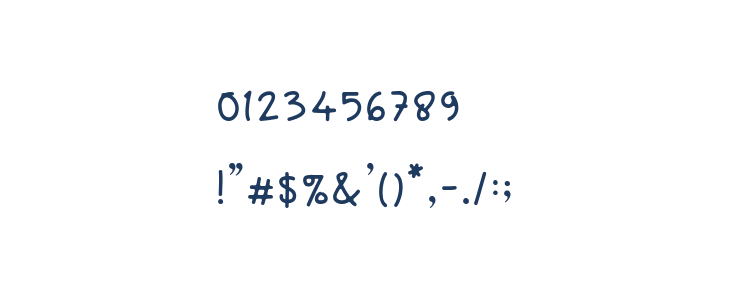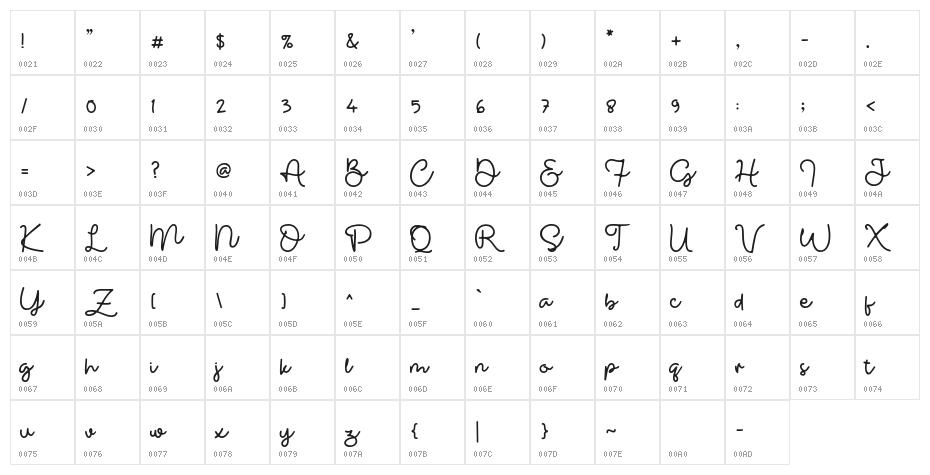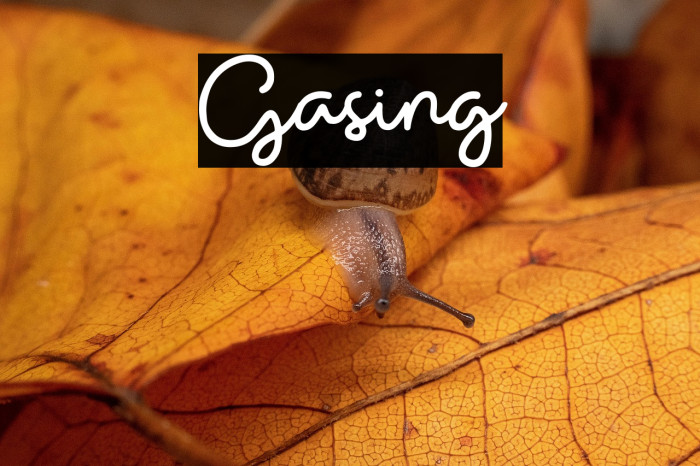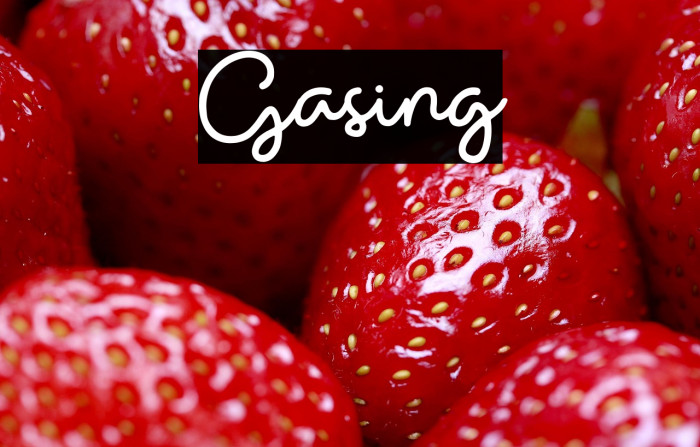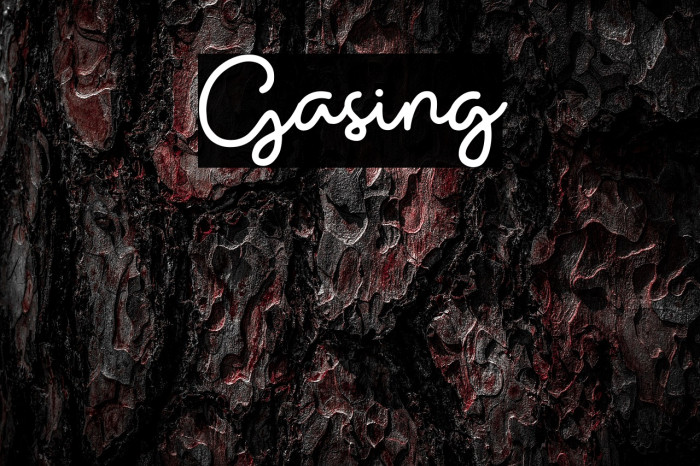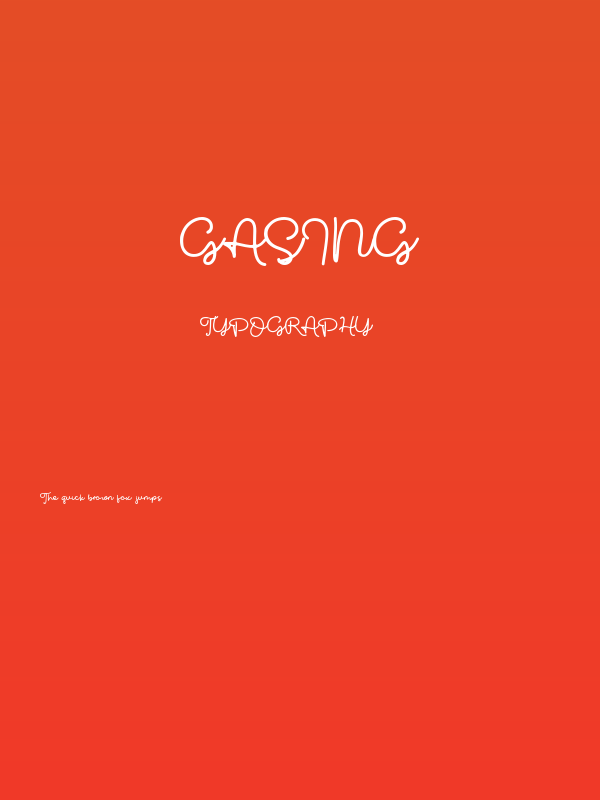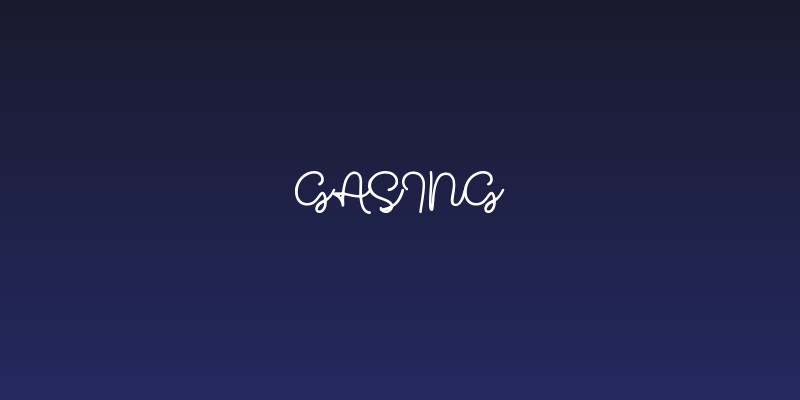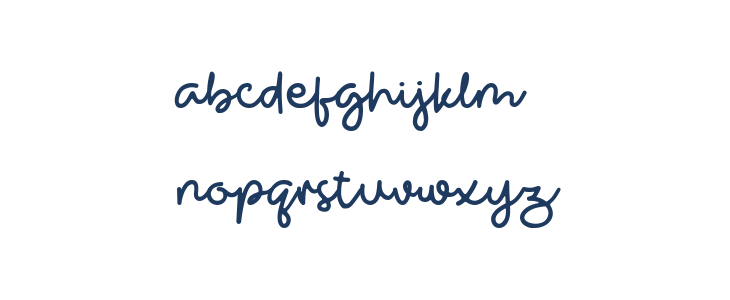
Gasing Font
Gasing Description
This font features a playful and flowing script style, characterized by its smooth, continuous strokes and elegant curves. The uppercase letters exhibit a whimsical flair, with some letters incorporating loops and swirls that add a touch of creativity and movement. The lowercase letters maintain a consistent fluidity, enhancing the font's overall cohesive appearance. Numbers and special characters are crafted with the same attention to detail, ensuring a harmonious look across all elements. This font's design is both approachable and stylish, making it suitable for a variety of creative applications.
Use CaseLogos, Invitations, Social Media
Proposed ProjectsIdeal for wedding invitations, greeting cards, branding projects, and social media graphics.